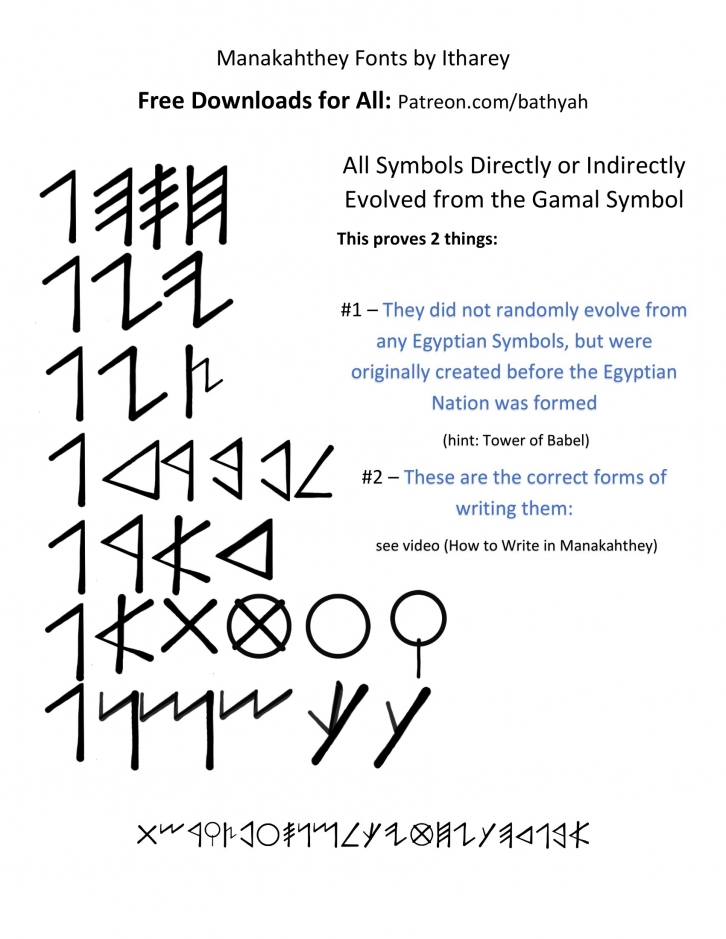
This font is for the Manakahthey language which is known as Paleo Hebrew, Phoenician, Ancient Hebrew, Biblical Hebrew or Classical Hebrew. It is really the language before "Hebrew" or the language of Noah. It is from the original language of all mankind. You can see the resemblance in English, Greek and many other languages. Even Asian! These fonts have been found all of the earth which further proves it is indeed the 1st. Want to learn more? Visit Manakahthey.com and sign up for the free course and learn this original language which came from signs symbols and hand signs too!